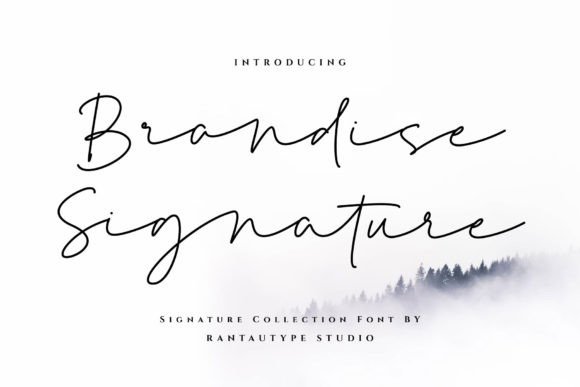
The Magic of Brandise Signature Font: Elevate Your Designs with Elegance
I’ll never forget the moment I stumbled upon the perfect font for a client’s wedding invitation project. I had been searching for what felt like an eternity, trying out font after font, but nothing seemed quite right. That was until I discovered Brandise Signature Font. With its elegant script and touch of magic, it transformed my design from ordinary to extraordinary. If you’re a designer, crafter, or creative hobbyist looking for a font that can elevate your projects, you’re in the right place.
An Honest Review of Brandise Signature Font
So, what makes Brandise Signature Font so special? Let’s dive into the good stuff and a few quirks to keep in mind.
• ✨ Elegant and sophisticated design that’s perfect for high-end projects
• ✅ Extensive character set, including glyphs and stylistic alternates, for added versatility
• ⚡️ Easy to read and works beautifully in both digital and print formats
• 🎨 Highly customizable, allowing you to add your personal touch to designs
While Brandise Signature Font is an amazing addition to any design project, there are a few things to keep in mind:
• 🤔 May not be the best choice for very small font sizes, as some details can get lost
• ⚠️ Limited use of uppercase letters, which can be a consideration for certain projects
The Story Behind Brandise Signature Font
While the true story behind Brandise Signature Font may be a mystery, it’s easy to imagine a designer pouring their heart and soul into creating a font that’s both beautiful and functional. Perhaps the designer was inspired by the flowing scripts of calligraphy, combined with a modern twist to create something truly unique.
Font Name Brandise Signature Font
Author RantauType
Q: What makes Brandise Signature Font so special?
A: Brandise Signature Font stands out for its elegant design, extensive character set, and versatility in both digital and print formats.
Q: Is Brandise Signature Font difficult to read?
A: No, Brandise Signature Font is designed to be easy to read, even at smaller font sizes, making it perfect for a range of applications.